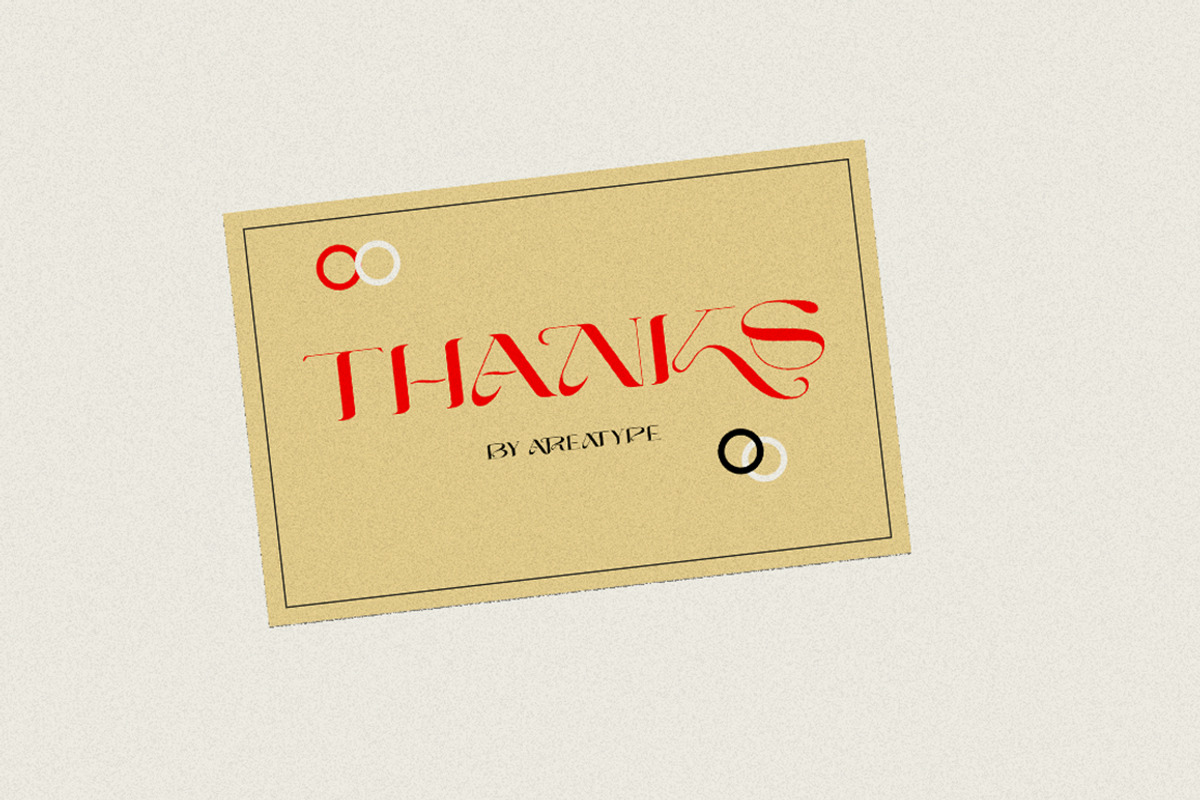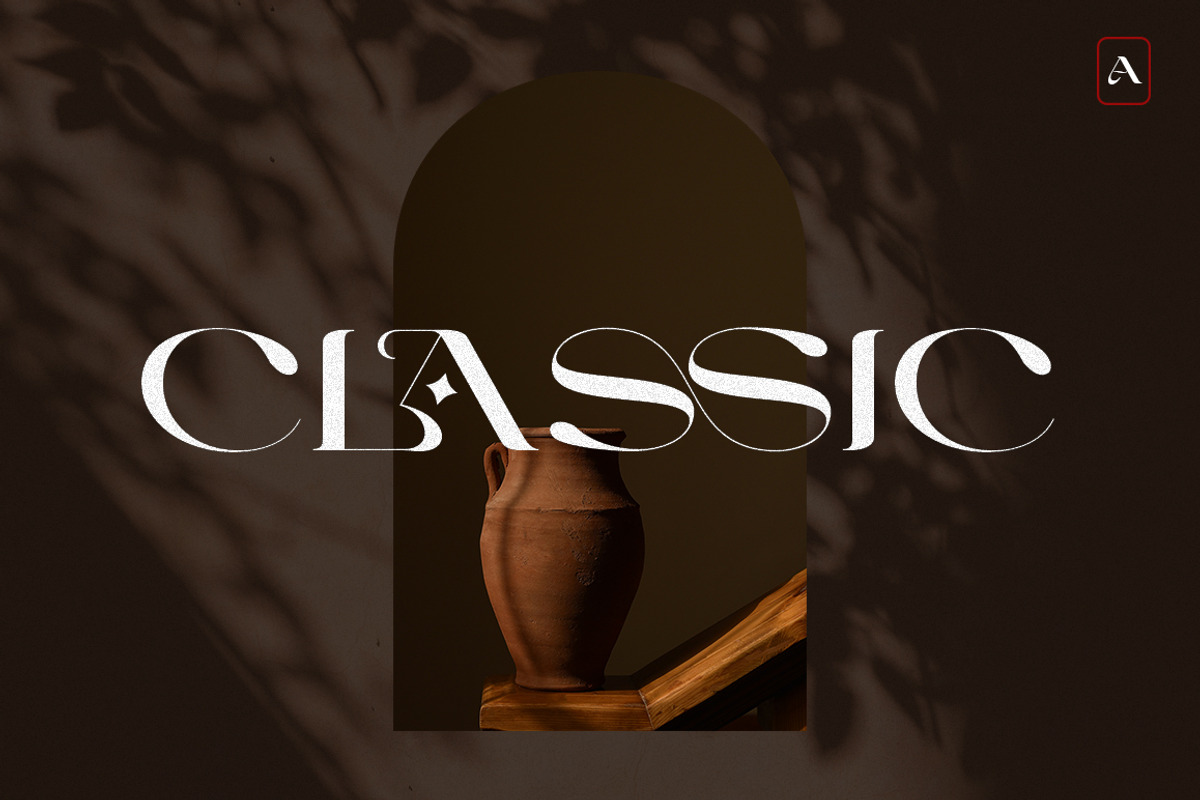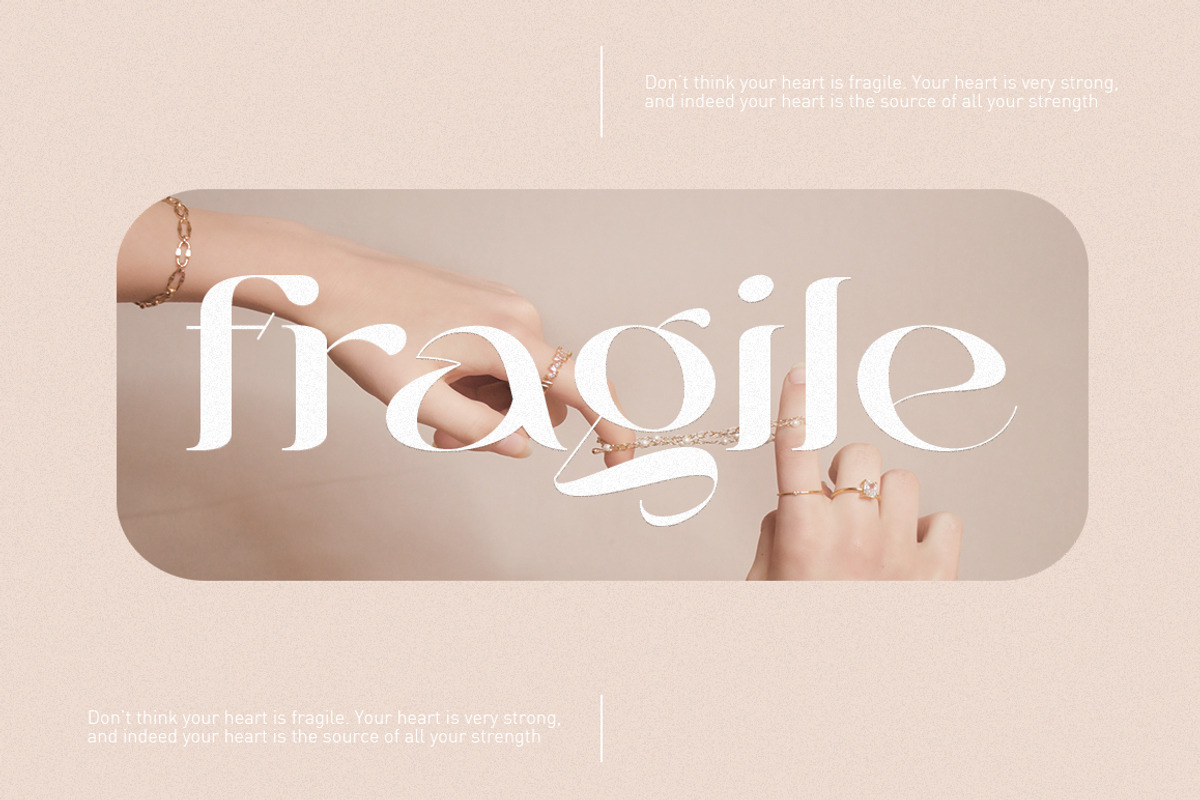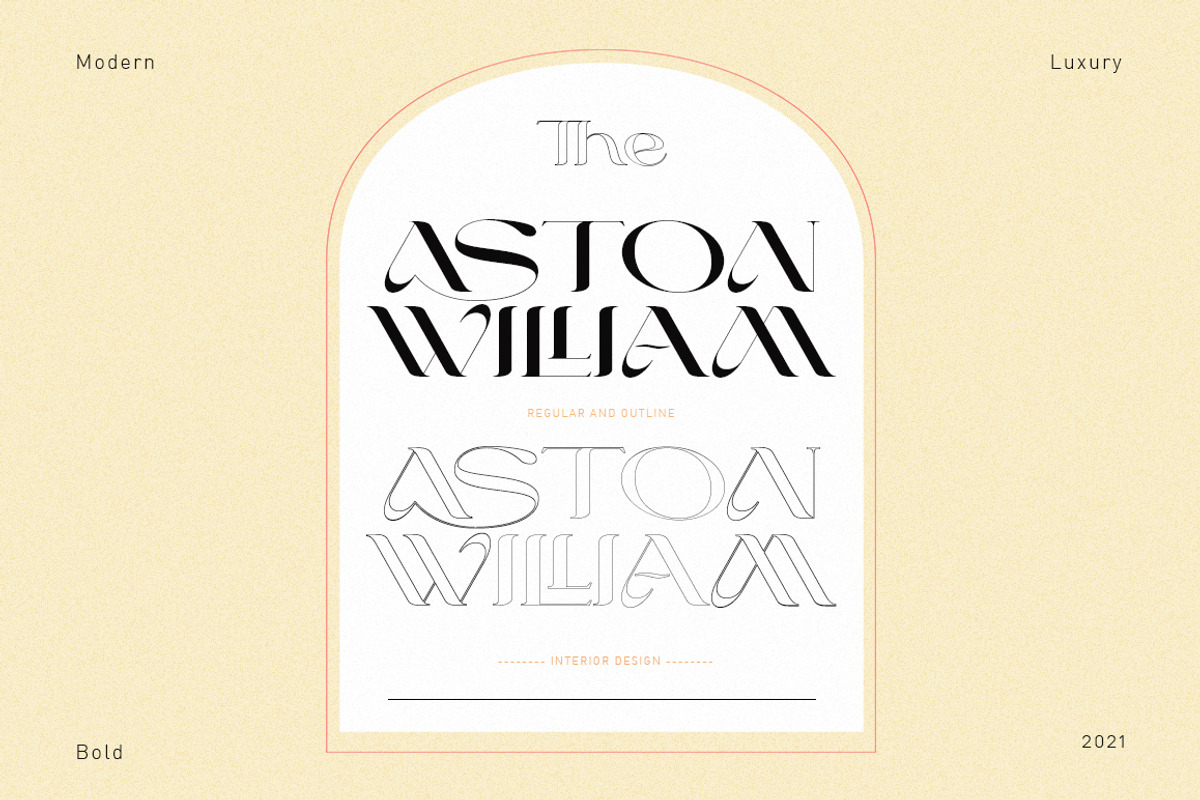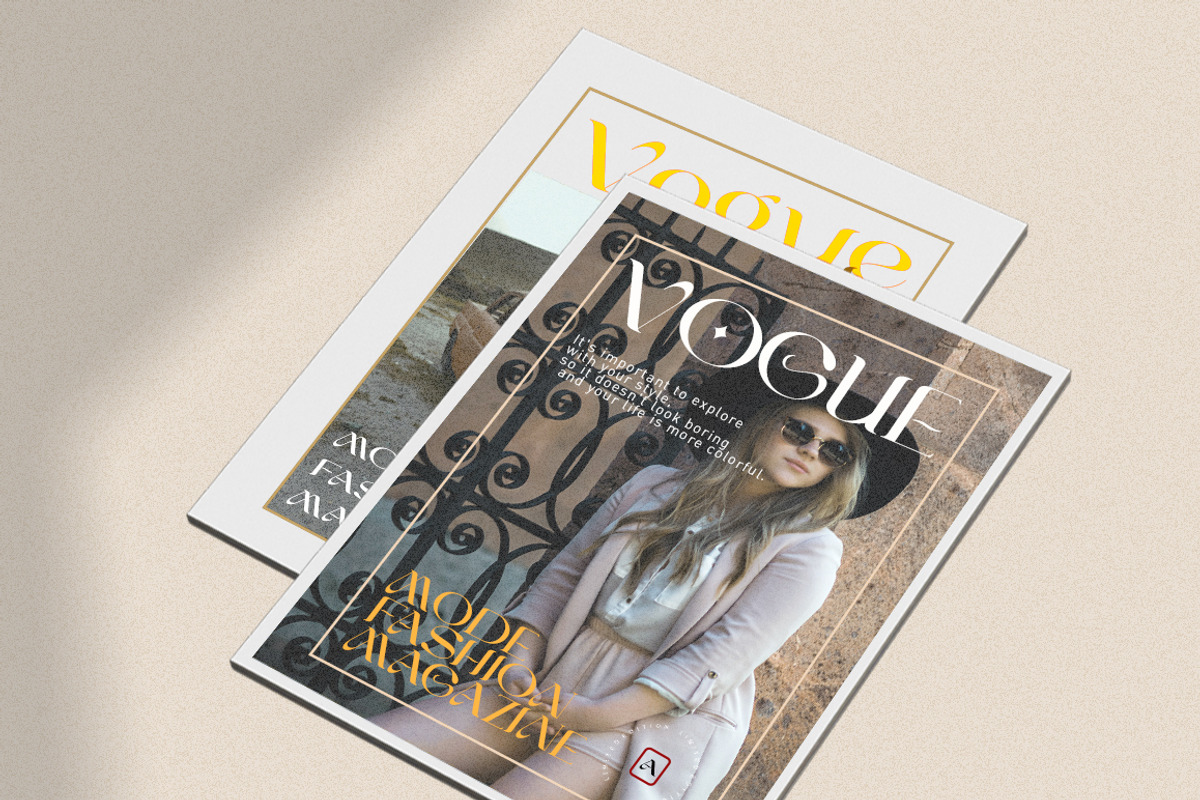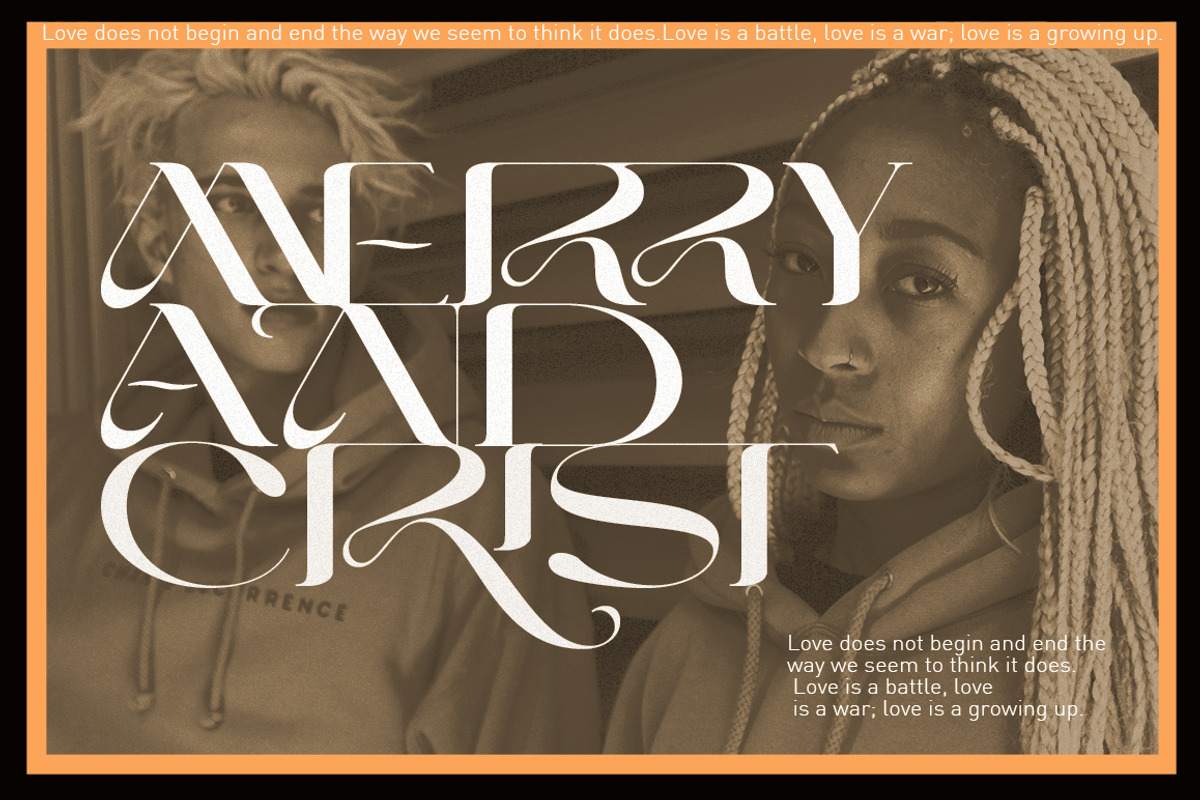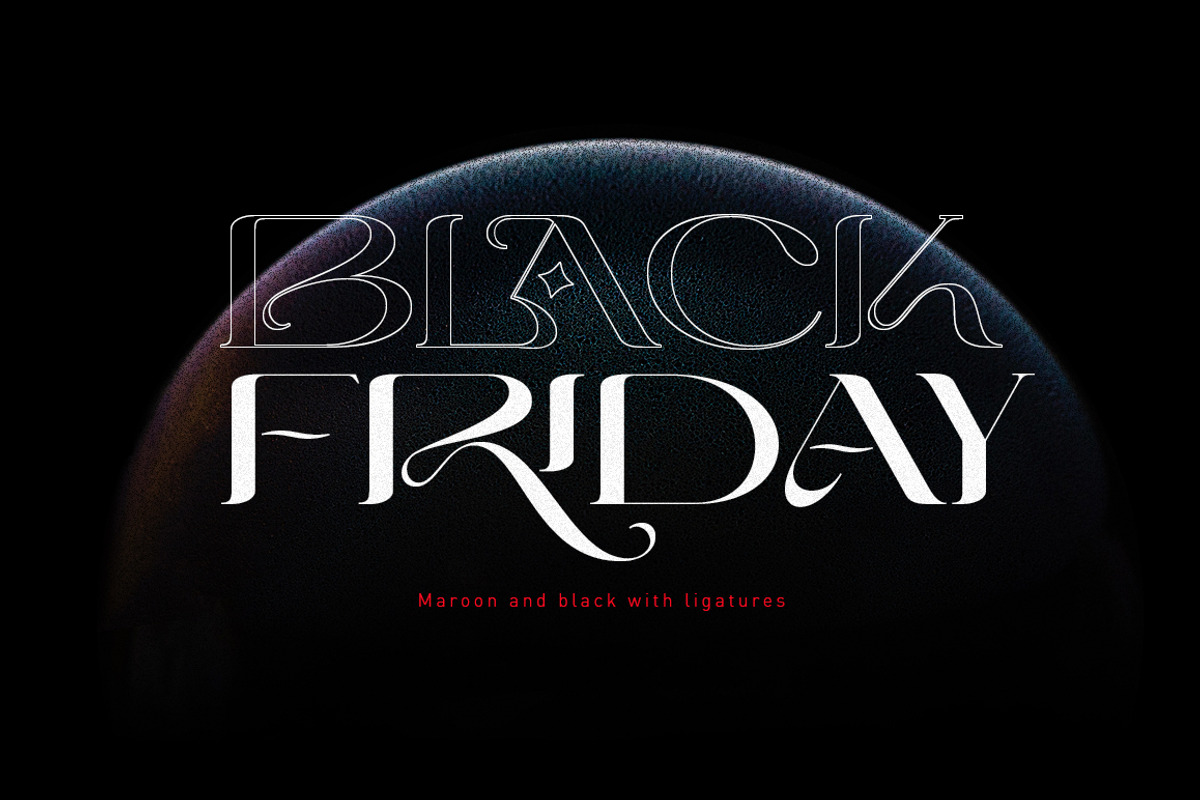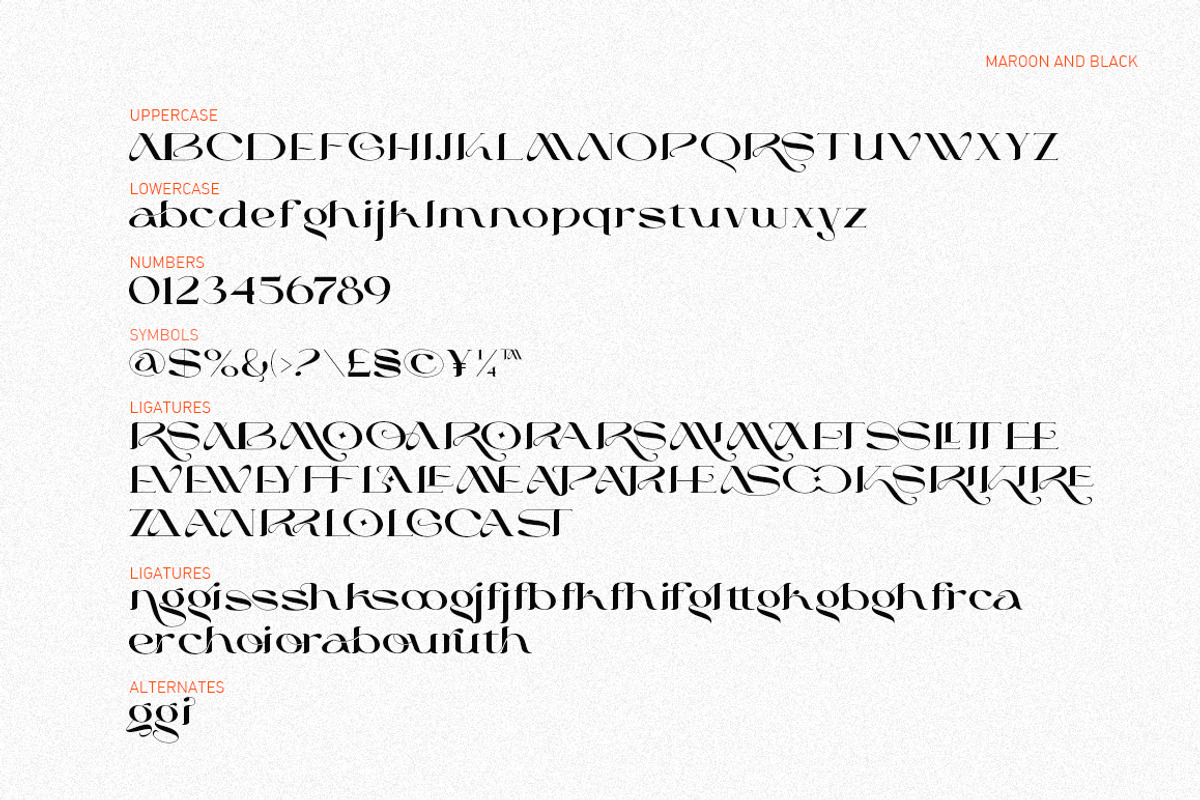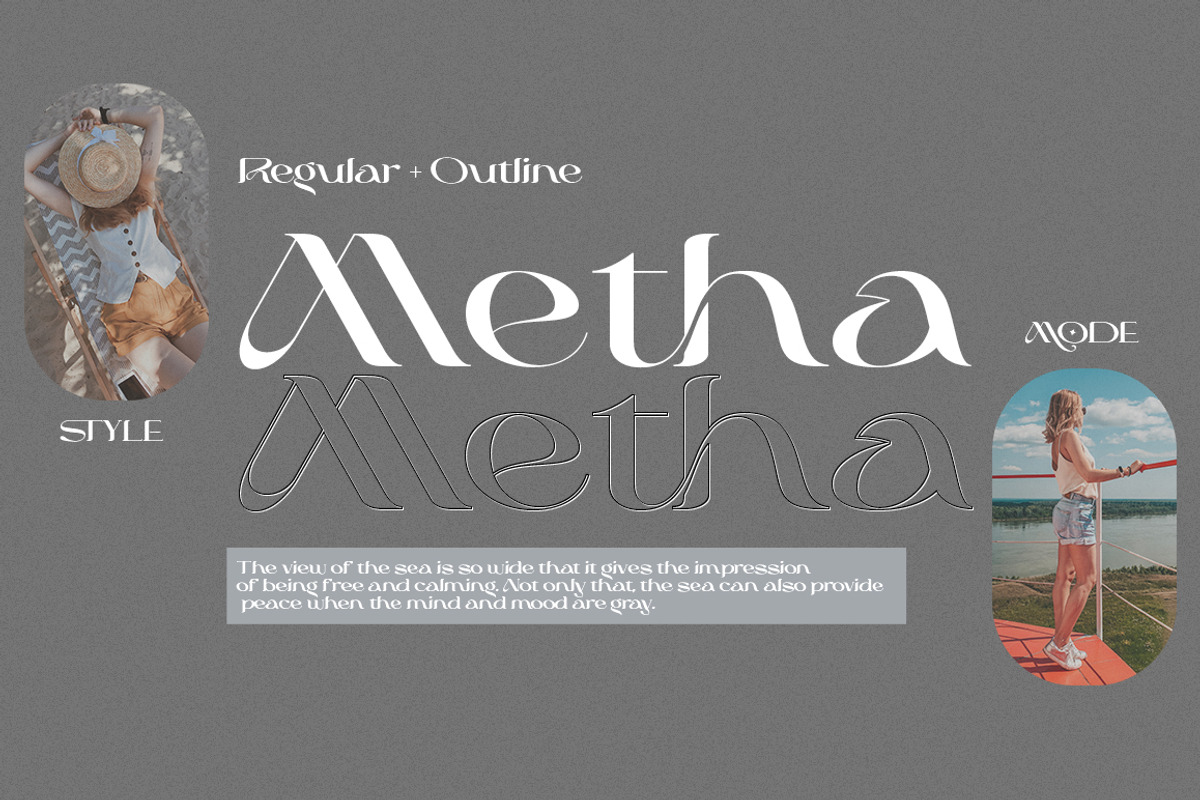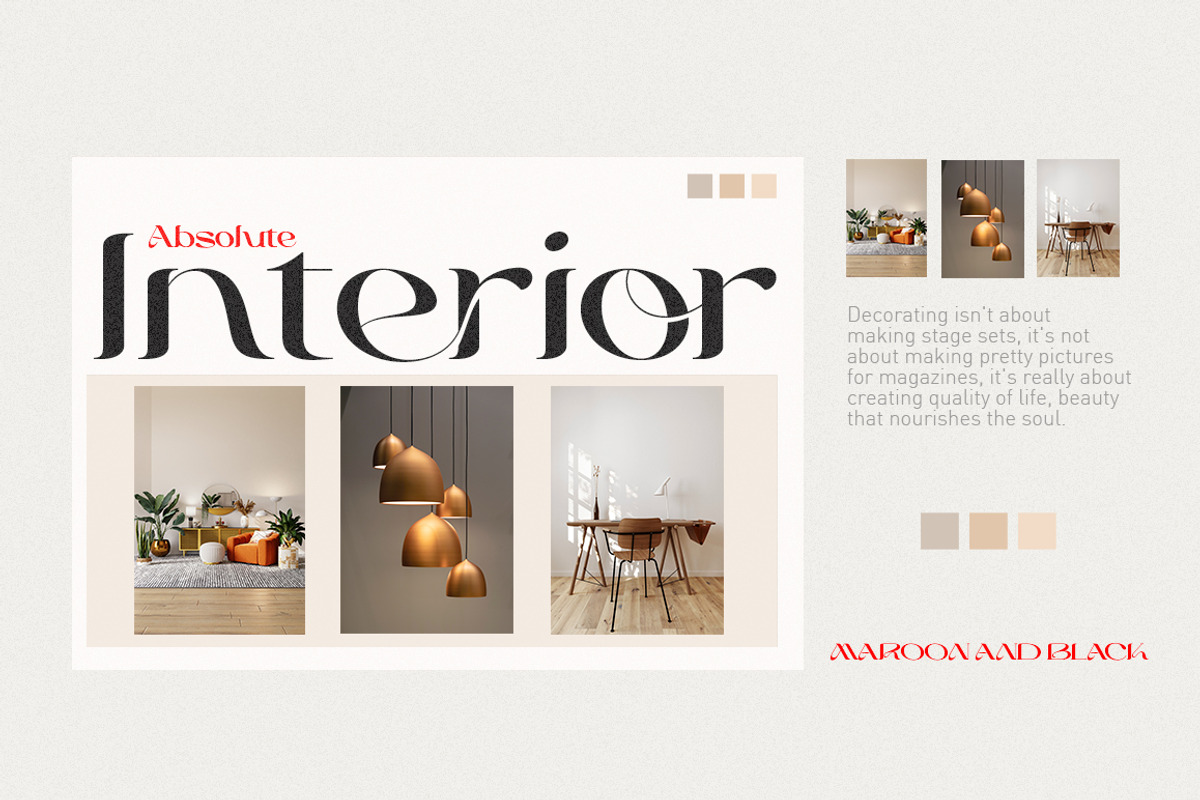
Maroon And Black
Maroon And Black a display sans serif is a very versatile font, clean, and visual elegance. Also available Maroon And Black Outline to help you mix and match it to fit your creative work in harmony. perfect for magazine images, to wedding invitations, to branding, poster design, and more.
Stylistic Alternates & Ligatures